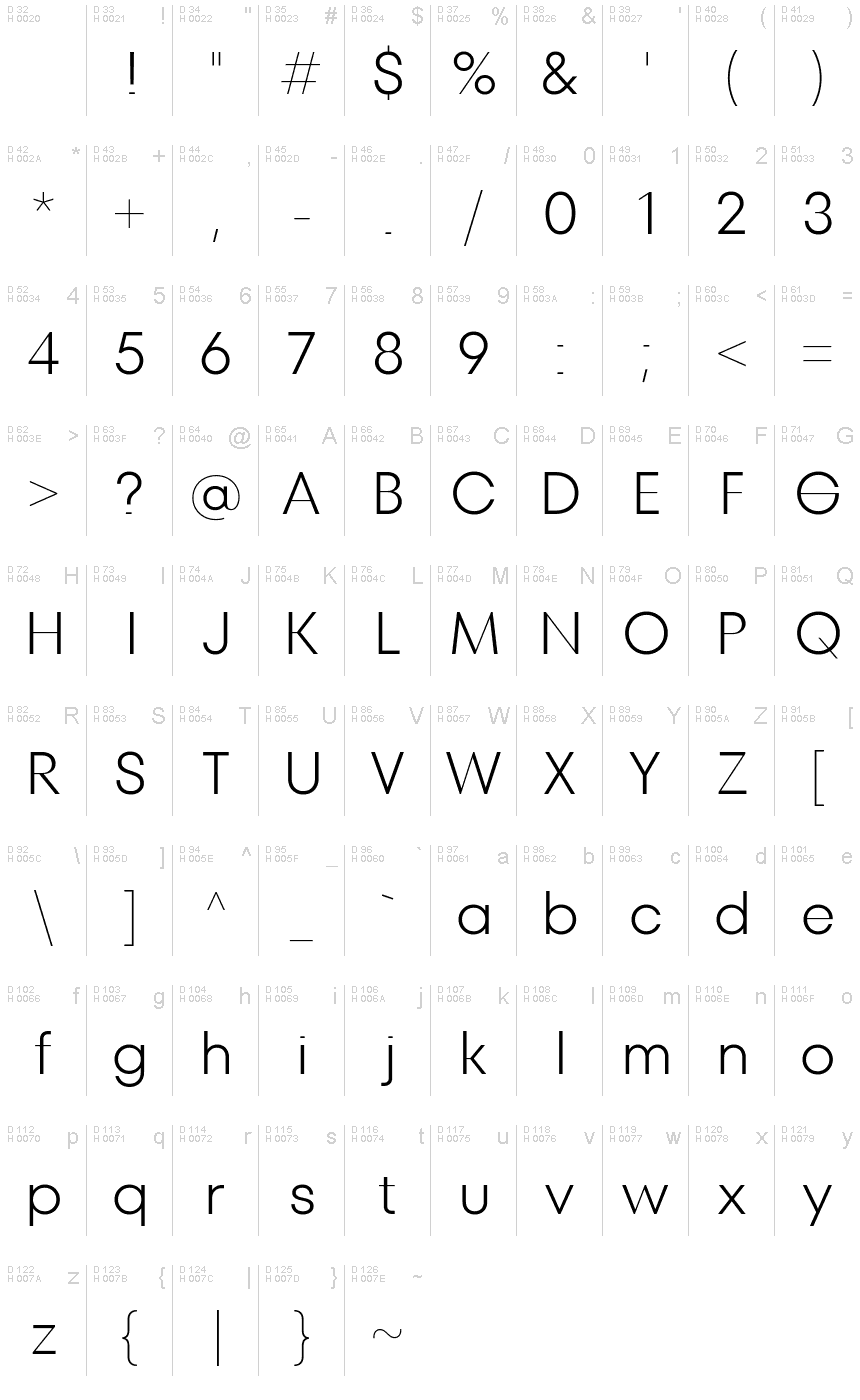
TT Fors Display Trl Light
TT Fors Display Light is a sleek and modern sans serif font designed by TypeType Foundry. With its light weight, it is perfect for creating minimalist and elegant designs. This font is suitable for a wide range of projects, from branding and packaging to editorial design and web design. Its clean lines make it ideal for corporate identities, while its subtle curves add a touch of sophistication to any project. Whether you are designing a website or creating a brochure, TT Fors Display Light will give your project the professional look it deserves.